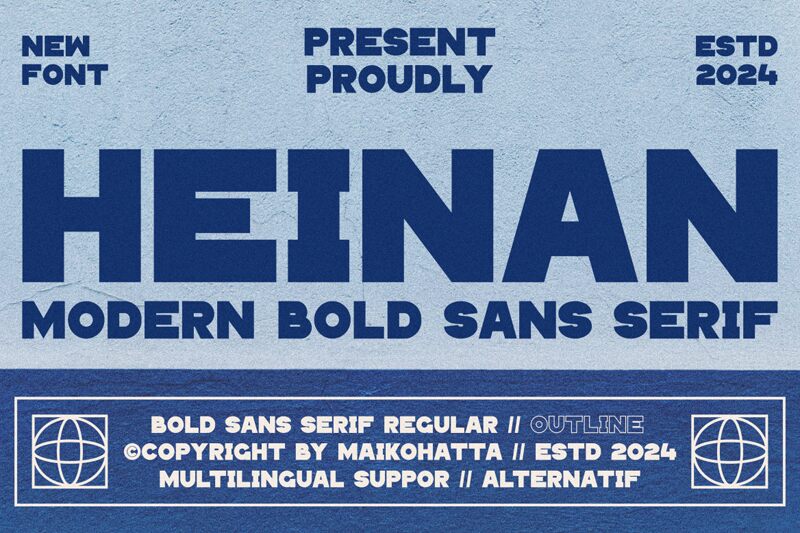
Heinan font family by Gilang Ternadho is a free geometric modern sans serif font suitable for contemporary design projects. It has a strong presence with a clean, professional appearance which can be easily utilized by a non-experienced designer in needed projects. This font family consists of 4 font styles and is made with the aim to provide the user with an impactful font for creating spectacular results.
The suggested usage includes branding, packaging, social media posts, quotes, layout design, website, app, label, stamp, certificate, and more. Typography specialists can all experiment and create with this font or combine it with others without losing the context of intended projects.